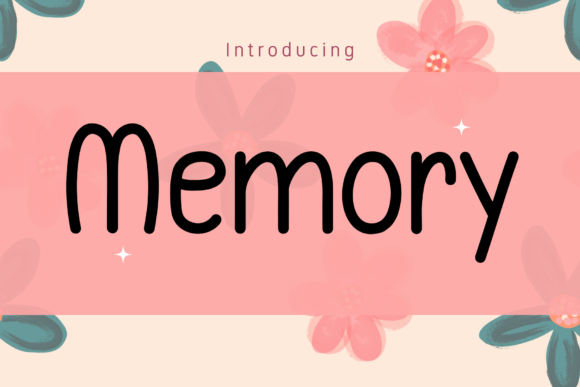
Dive into the enchanting world of Memory Font, a captivating script font family that will transform your creative projects into mesmerizing works of art. Crafted with meticulous attention to detail by the talented Cutie Kate Studio, Memory Font is the ultimate choice for those seeking an authentic handwritten touch in their designs.
Unleash your creativity and let Memory Font guide you through a symphony of styles. From T-shirts that speak volumes to tote bags that carry your dreams, from hats that make a statement to stickers that add a touch of whimsy, Memory Font will elevate your designs to new heights.
Embrace the charm of Memory Font for your wedding invitations, adding an ethereal elegance that reflects the beauty of your special day. Create logos that leave a lasting impression, capturing the essence of your brand with a unique and personal touch. Design cards that convey heartfelt messages, making every word resonate with sincerity and warmth.
With Memory Font, transform ordinary quotes into extraordinary expressions. Let your words dance across the page, capturing the essence of your emotions and leaving an indelible mark on the hearts of your readers.